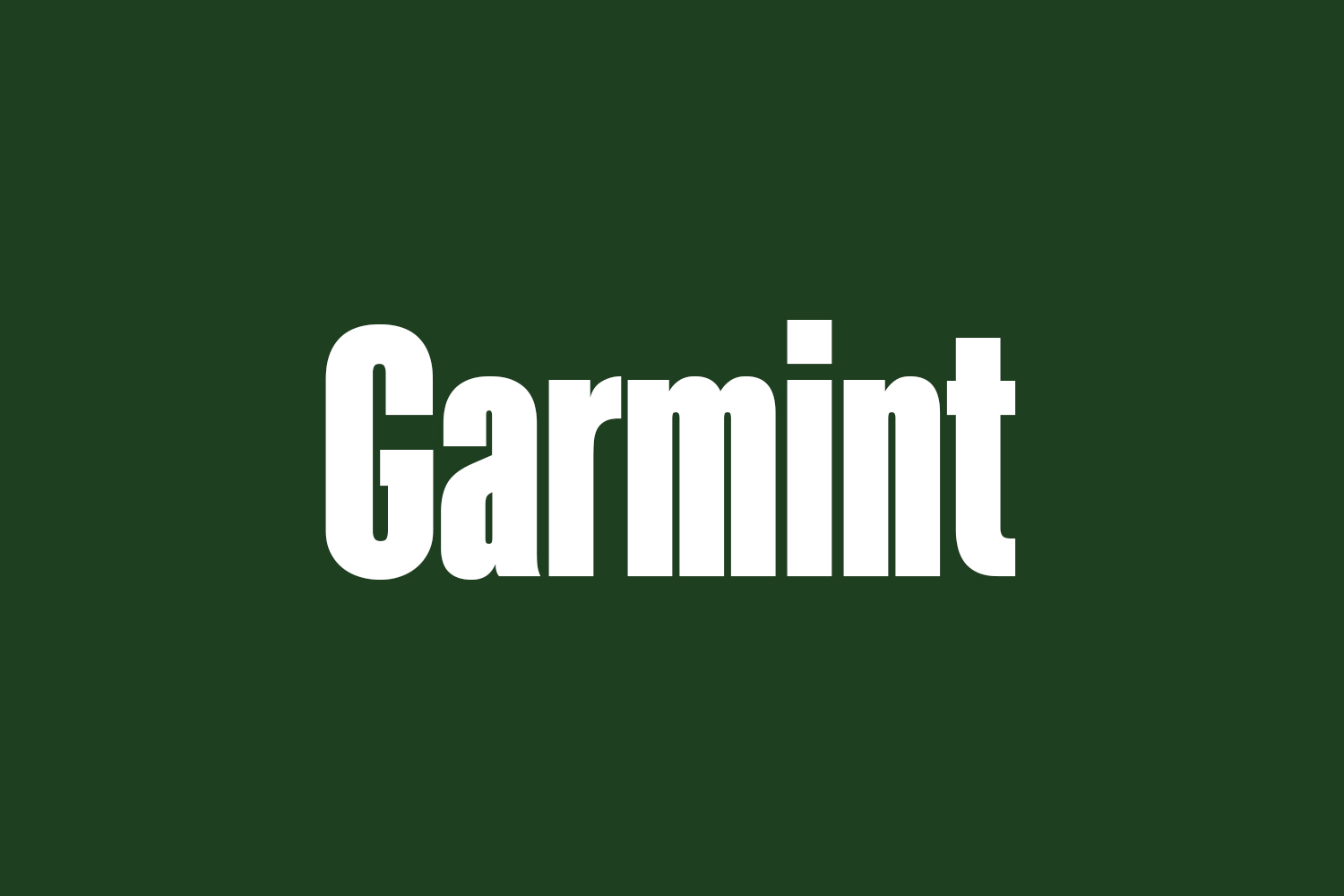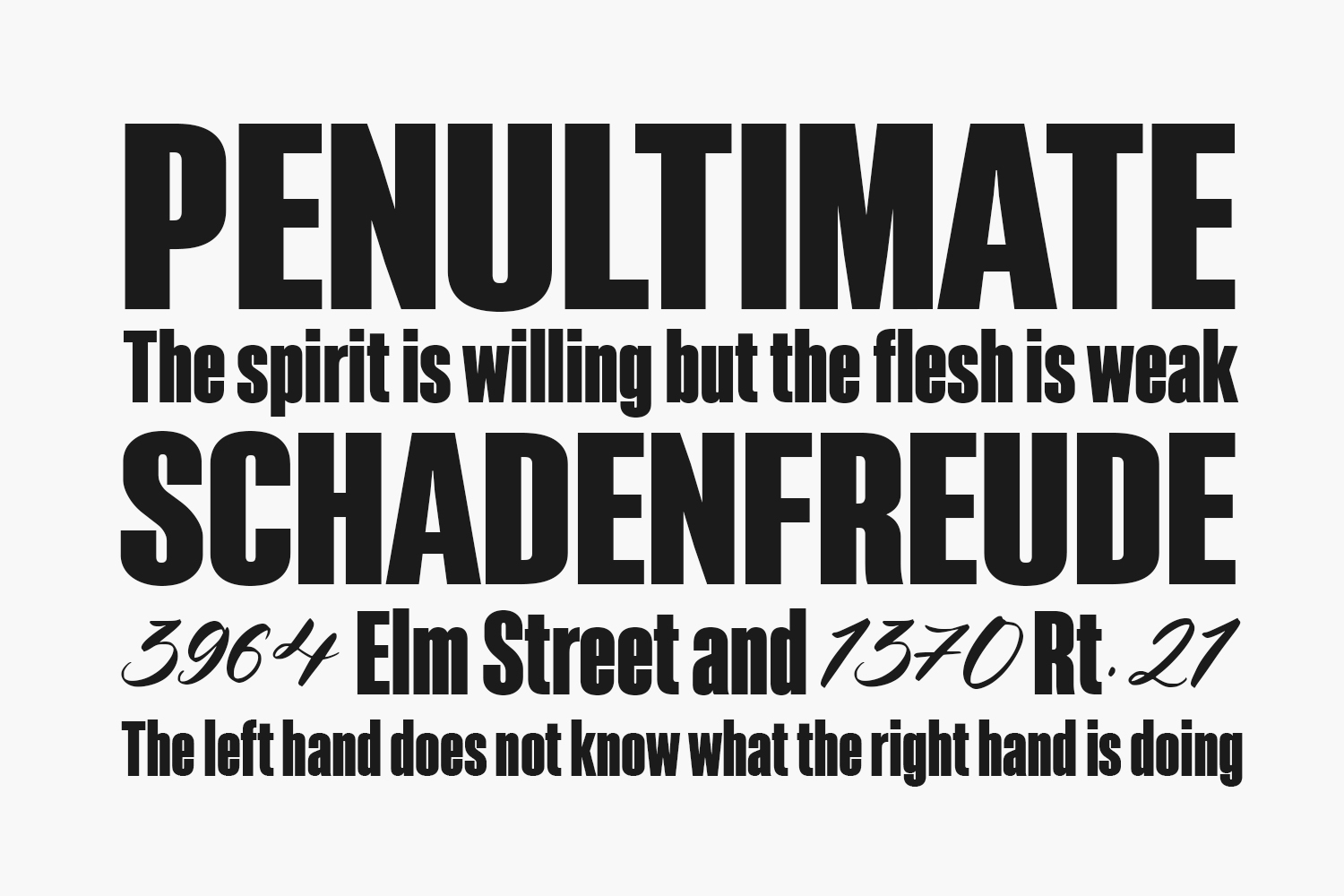
The modern sans serif display Garmint Free Font is elegant and refined, with its clean lines and sleek design evoking a sense of sophistication and refinement. The font’s bold, yet understated appearance is both captivating and confident, making it ideal for use in high-end branding and marketing materials, as well as in any project that demands a modern and polished aesthetic. The font with its unique display characteristic gives an impression of creativity and out-of-the-box thinking, making it perfect for headlines and short phrases.